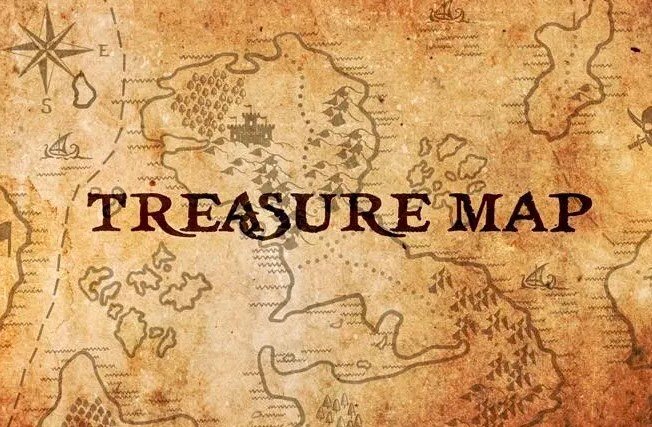
High-quality fonts play a crucial role in designing appealing and attention-grabbing projects. If you're seeking a typeface that will assist you with any kind of graphic project, you definitely need to consider using Treasure Map Font.
Style Rough
Designer joannavu
This is a vintage typeface as you can see in the image above and get an idea about is rough characters. These rough characters can also used for vintage designs, old covers, unique magazine designs and much more other graphics projects. You can get this awesome font without any cost and used for your all types of purpose.
What Type of Font Is Treasure Map?
The Treasure Map Font is the famous and amazing typeface which was product of the combination joannavu.
What's the Closest Font to Treasure Map?
The Revans Serif Font Family is very close to the Treasure Map Font.